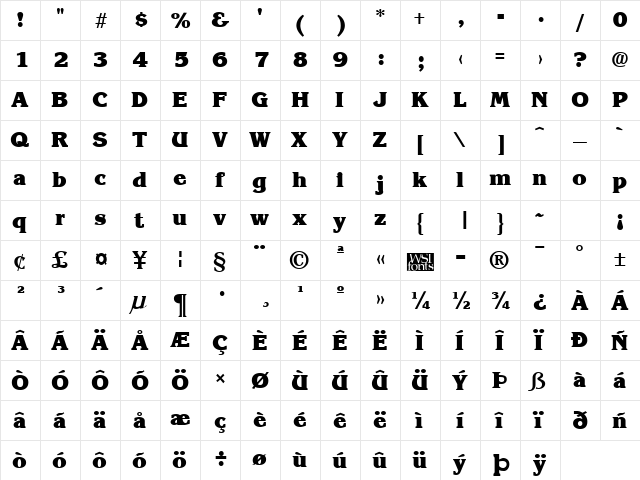
KroneExtrabold Regular Font Preview
KroneExtrabold Regular
Design Context for KroneExtrabold Typeface
KroneExtrabold takes a measured approach to typography — its balanced proportions and neutral character make it a reliable workhorse for both digital and print work. The heavy weight commands attention and anchors typographic hierarchies.